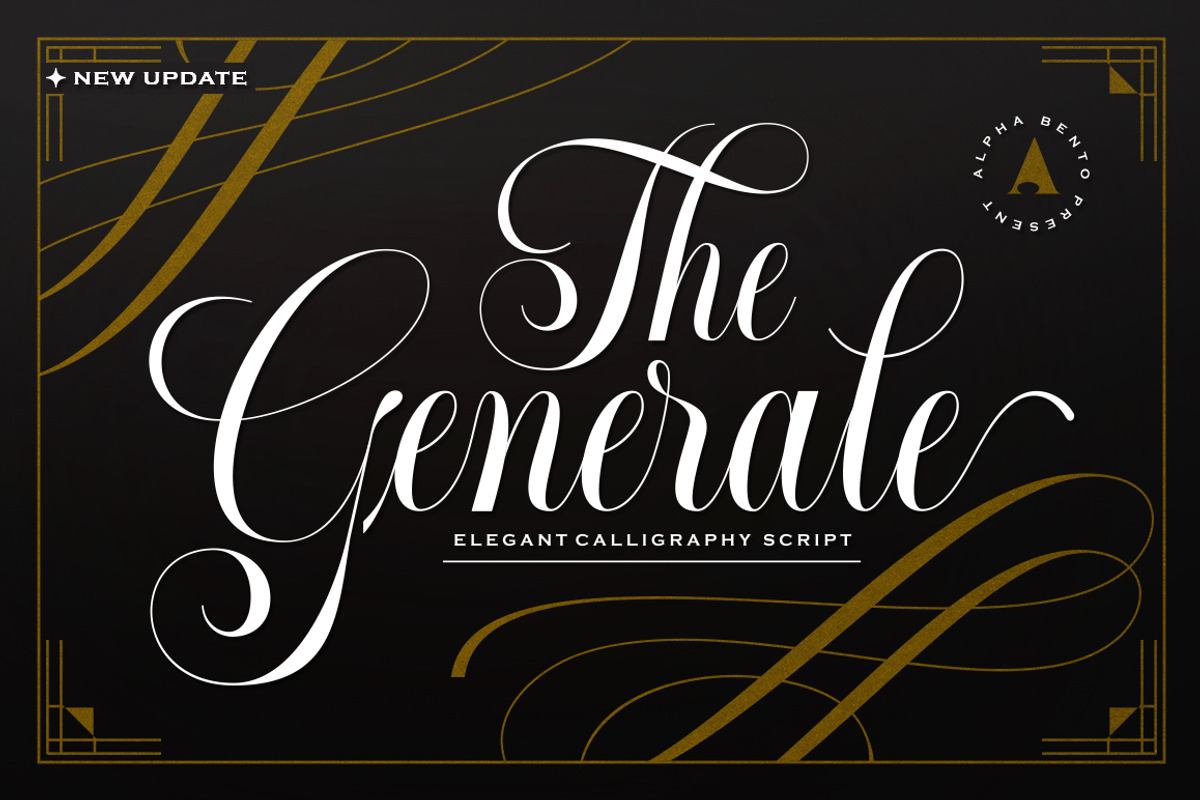
Generale Script Font is perfect for military-themed branding, formal ceremony materials, distinguished business communications, prestigious event invitations, authoritative logo design, official government documents, executive presentations, commanding signage systems, leadership training materials, distinguished award certificates, formal recognition programs, and powerful institutional communications.
Generale Script Font is exciting because it embodies leadership authority and distinguished command through its powerful script letterforms that capture the dignity, honor, and unwavering strength associated with military leadership and institutional excellence. This commanding typeface features bold character strokes with authoritative elegance that reflects the disciplined precision and respected tradition of military heritage. The font's leadership aesthetic creates instant connections with audiences who value honor, discipline, and the distinguished character that defines true leadership and institutional authority.
Generale Script Font includes comprehensive font families: Regular Command Style, Bold Authority Weight, Light Distinguished Touch, Medium Leadership Balance, Italic Flowing Honor, Condensed Discipline Format, Extended Ceremonial Width, Decorative Medal Version, Shadow Rank Effects, and Special Military Symbols, providing complete solutions for authoritative and military-themed design projects that demand respect, honor, and distinguished institutional presence.
This commanding typography solution transforms ordinary communications into distinguished leadership experiences through its authentic military aesthetic and authoritative design language. Generale Script Font Free Download enables designers and institutional brands to access premium leadership typography that instantly adds authority, honor, and distinguished appeal to any creative project. The font's carefully crafted commanding elements ensure authentic military character while maintaining excellent readability and distinctive leadership presence.
Military organizations, government institutions, and leadership-focused businesses trust Generale Script Font for its ability to communicate authority, honor, and institutional excellence to audiences seeking credible leadership and distinguished organizational representation. The typeface's commanding construction performs beautifully across various applications, from intimate ceremonial communications to large-scale institutional branding campaigns. Its extensive character support includes multilingual capabilities and military-themed design elements that enhance authoritative institutional brand presentations.
The creative inspiration behind Generale Script Font draws from military tradition, leadership excellence, and the distinguished heritage of institutional honor that continues to inspire respect and admiration across cultures and generations. This authority-focused approach creates a font that feels genuinely commanding while maintaining contemporary relevance across different institutional contexts and leadership brand expressions.